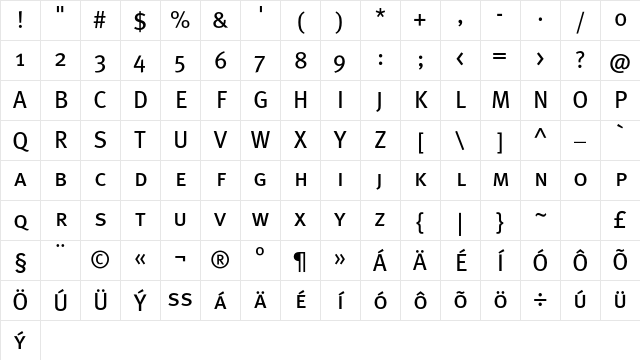
MetaBookCE Caps Free Font
MetaBookCE Caps
Style: Caps
Design Context for MetaBookCE
MetaBookCE is a composed and adaptable typeface that performs quietly and consistently across a wide range of design contexts.